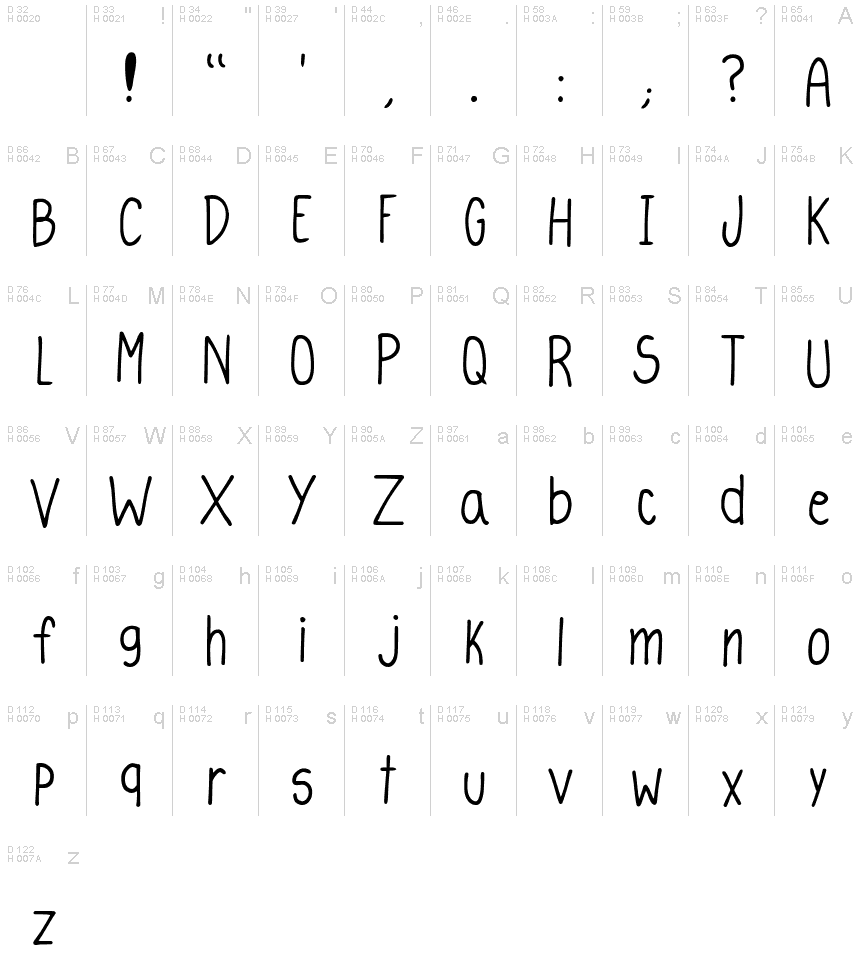
Escrito Regular
Escrito, a casual handwritten font by Geraldine Romero, brings a delightful touch to your projects. With its semi-light weight and condensed width, it effortlessly adds a playful yet stylish vibe to your designs. Perfect for creative ventures like fashion blogs, wedding invitations, and children's book covers. Give your branding an authentic feel or add a personal touch to social media graphics with Escrito. This versatile typeface adds a unique charm to any project that needs a hint of whimsy and elegance. Let Escrito be the voice that speaks volumes through your words!